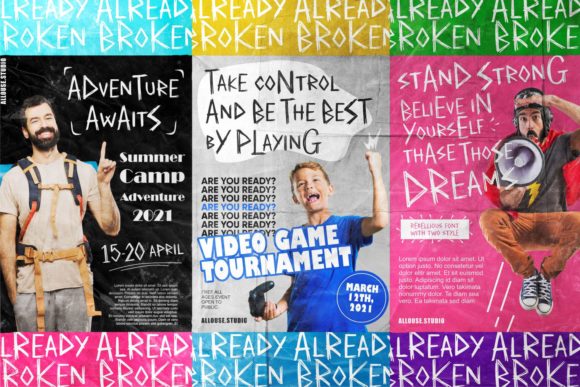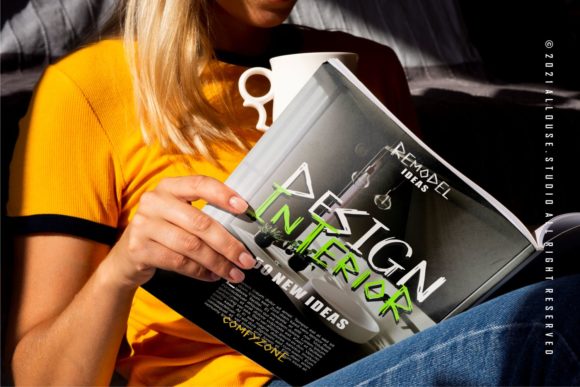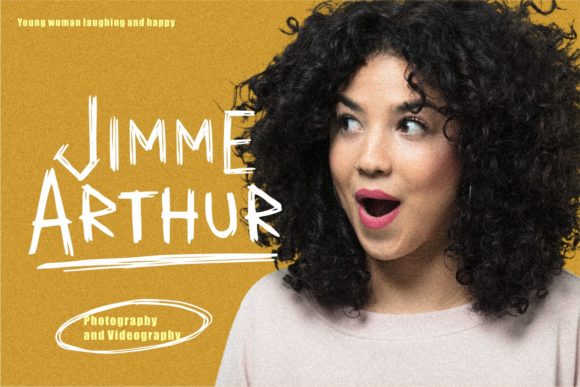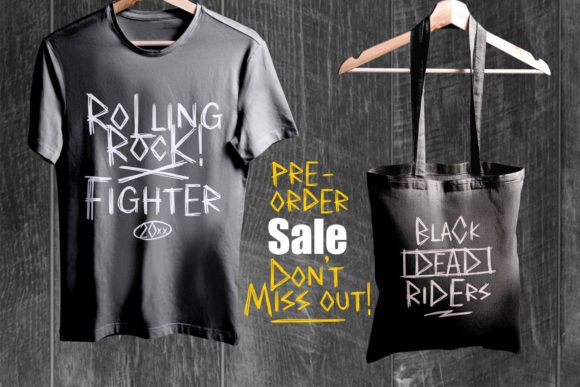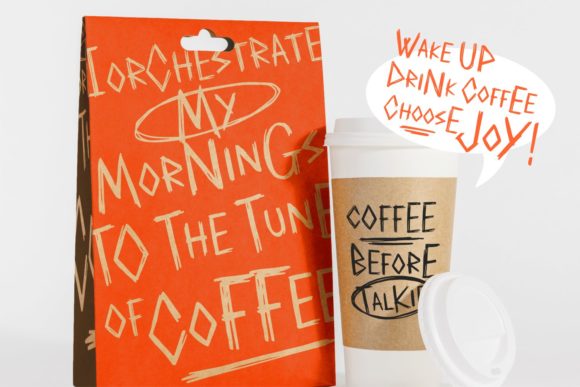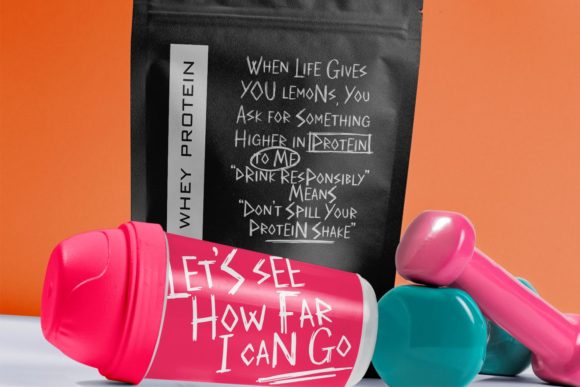
The Birth of a Masterpiece: Unleashing the Power of Already Broken Font
You know that moment when inspiration strikes and your creative juices start flowing? The ideas are pouring in, and you can’t wait to bring them to life. That’s exactly what happened when we stumbled upon the Already Broken Font – a rebellious and dramatic display font that screamed ‘use me’.
Already Broken Font is more than just a font; it’s a statement piece, a conversation starter, and a way to add some much-needed edge to your designs. With its bold and unconventional style, it’s the perfect tool for designers who want to push the boundaries of creativity and make a lasting impression. Whether you’re working on a project that needs a dramatic flair or simply want to add some visual interest to your designs, Already Broken Font is the perfect solution.
Already Broken Font Key Features
- Unique Characteristics: Already Broken Font features a distressed, broken aesthetic with irregular letterforms and subtle texture, giving it a unique and eye-catching appearance.
- Font Family: The font family consists of 12 weights, ranging from Light to Black, allowing for a high degree of flexibility and customization.
- Language Support: Already Broken Font supports a wide range of languages, including Latin, Cyrillic, and Greek alphabets, making it suitable for use in various international contexts.
Review: Already Broken Font
I’ve had the chance to play around with the Already Broken Font, and I must say it’s an interesting addition to the font family. ✨ Here are some things that stood out to me:
- Unique aesthetic: The font’s distressed, broken look adds a touch of grit and edginess that’s hard to find elsewhere.
- Highly customizable: The font’s broken edges can be adjusted to fit your specific design needs, making it a versatile option for various projects.
- Perfect for creative projects: Already Broken Font is ideal for projects that require a sense of rebellion or nonconformity.
- Readability issues: The broken edges can make the text more difficult to read, especially at smaller font sizes.
- Limited font weights: Currently, the font is only available in a few weights, which may limit its usability in certain situations.
Overall, I think the Already Broken Font is a great option for designers who want to add a bit of attitude to their projects. While it may not be perfect for every situation, its unique aesthetic and high level of customization make it a valuable addition to any font collection.
The Already Broken Font is a versatile font that can be used in a variety of contexts, including:
- Typography-based designs, such as posters, flyers, and business cards.
- Web design, including website headers, footers, and